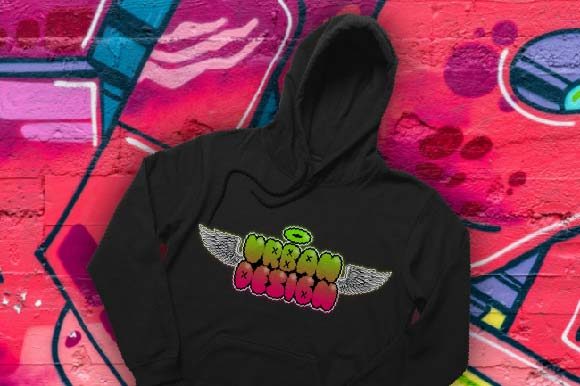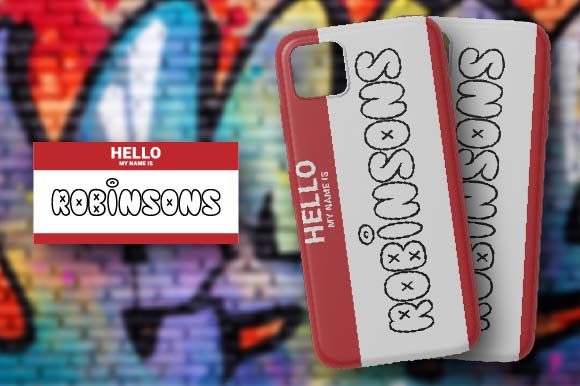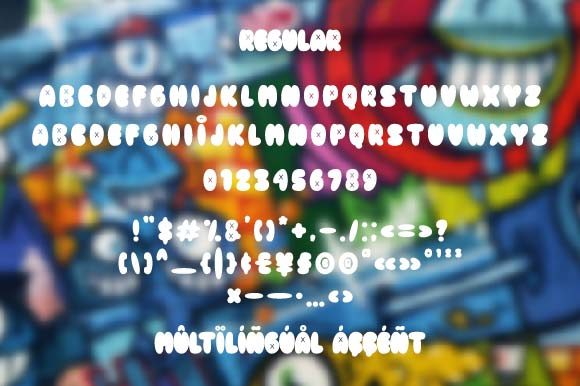
Introduction to Fillings Urban Font
Fillings Urban is a graffiti styled, trendy display font.
This original look will appeal to a wide range of crafty ideas, from letterheads and titles, to stationery .